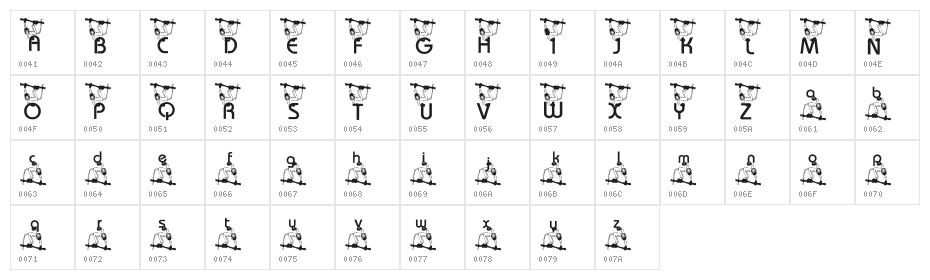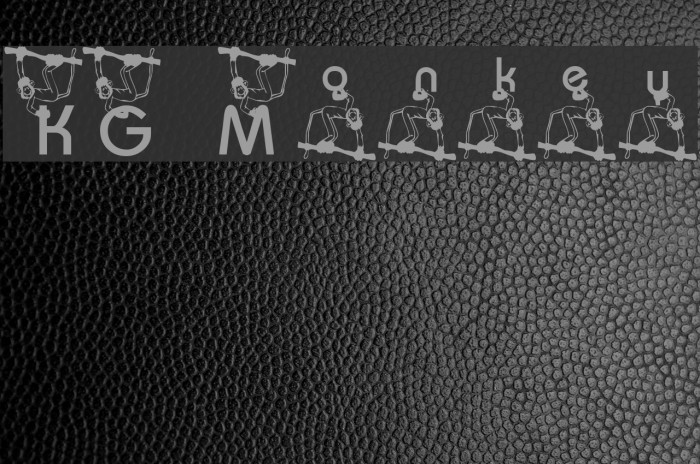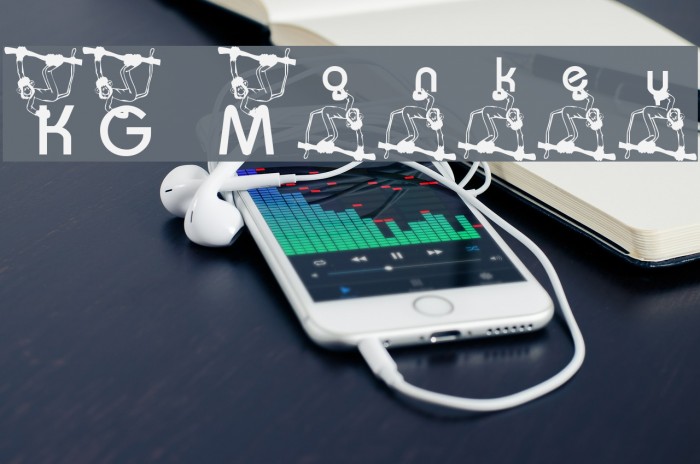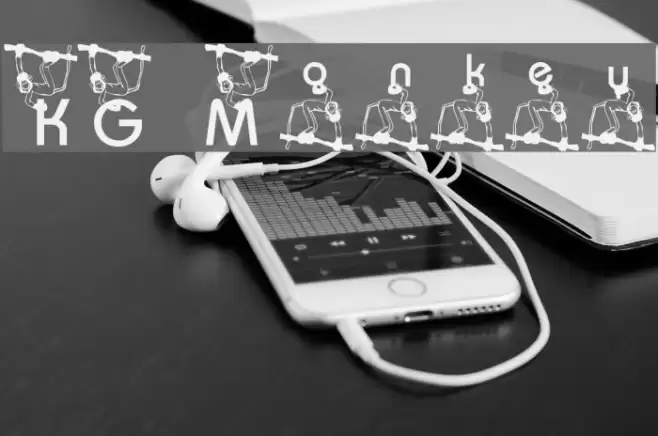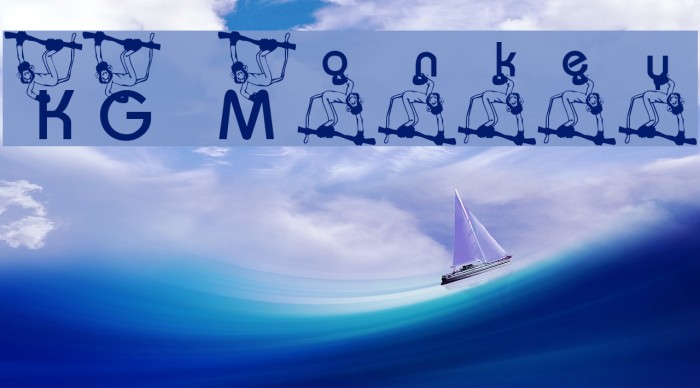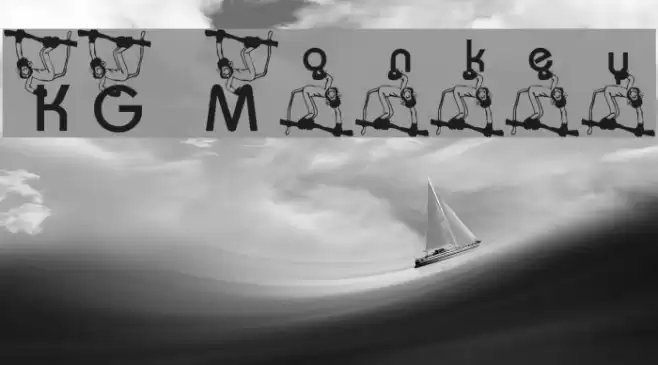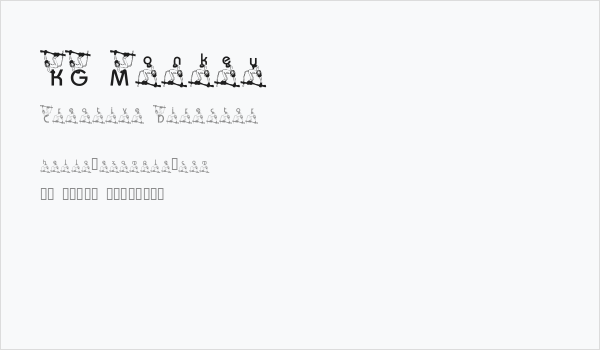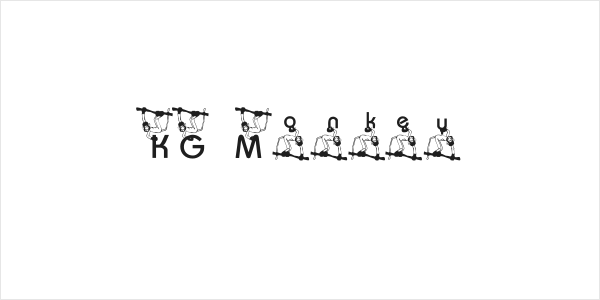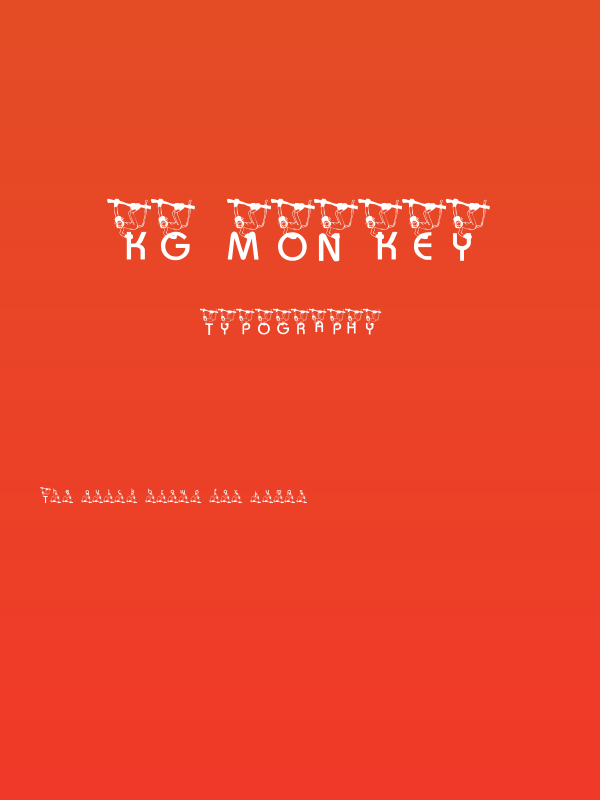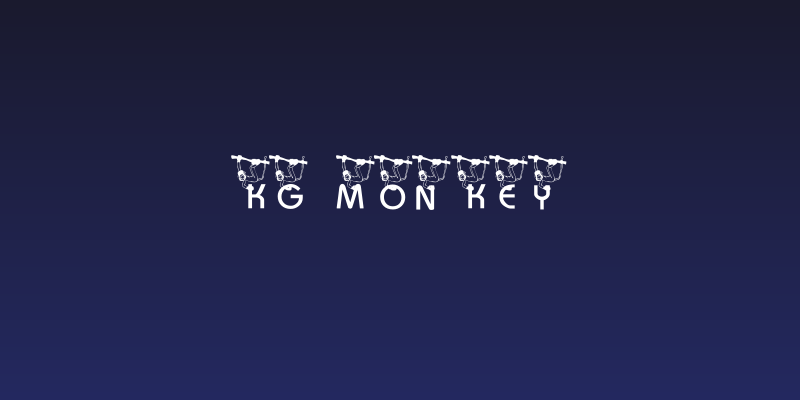
KG Monkey Font
KG Monkey Description
This playful and whimsical font features letters integrated with monkey illustrations, creating a unique and engaging visual experience. Each character is cleverly designed with a monkey hanging or interacting with the letterform, adding a sense of movement and fun. The uppercase and lowercase letters maintain a consistent style, with the monkeys seamlessly incorporated into the design. The font includes numbers and a selection of special characters, all following the same creative theme. This font is perfect for projects that require a lighthearted and entertaining touch, making it ideal for children's materials, playful branding, or any design that aims to capture attention with its distinctive style.
| Overall Style | Playful and Whimsical |
| Use Case | Headlines, Logos, Decorative Text |